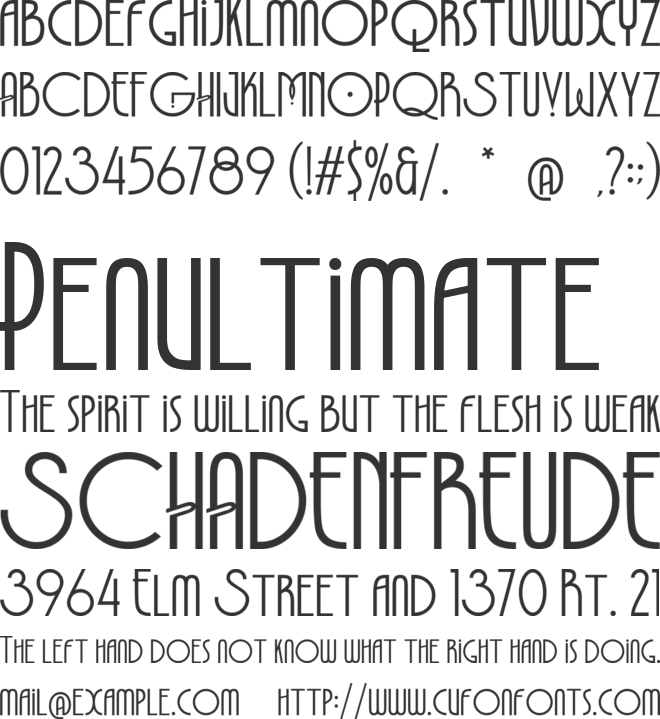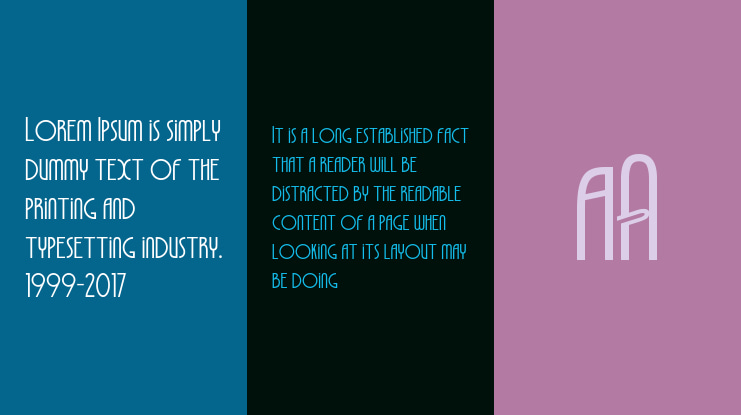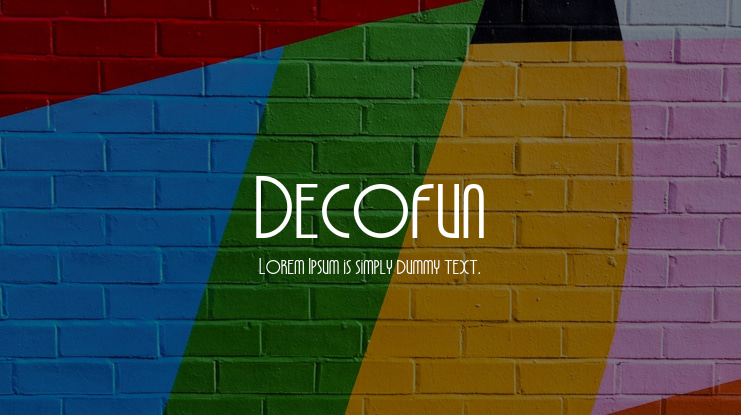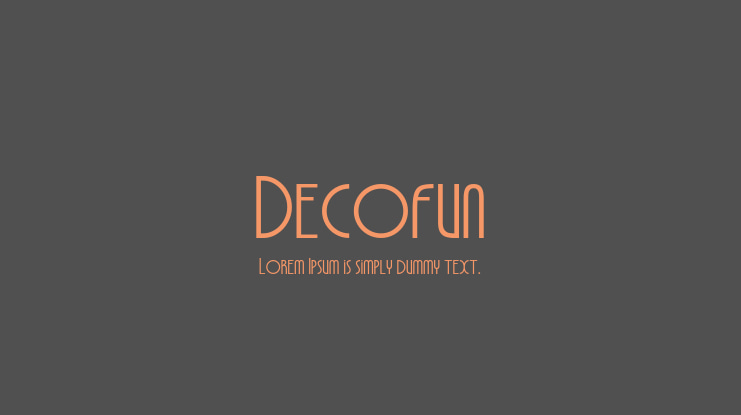
Decofun Font
Decofun Typeface
Where Modern Elegance Meets Dynamic Design
Decofun Typeface is a vibrant celebration of modern Art Deco aesthetics, meticulously designed to bring a touch of timeless sophistication and bold creativity to your projects. With its unique and dynamic shapes, Decofun reimagines the glamour of the Art Deco era in a contemporary form, making it the perfect choice for striking headlines, logos, invitations, and more.